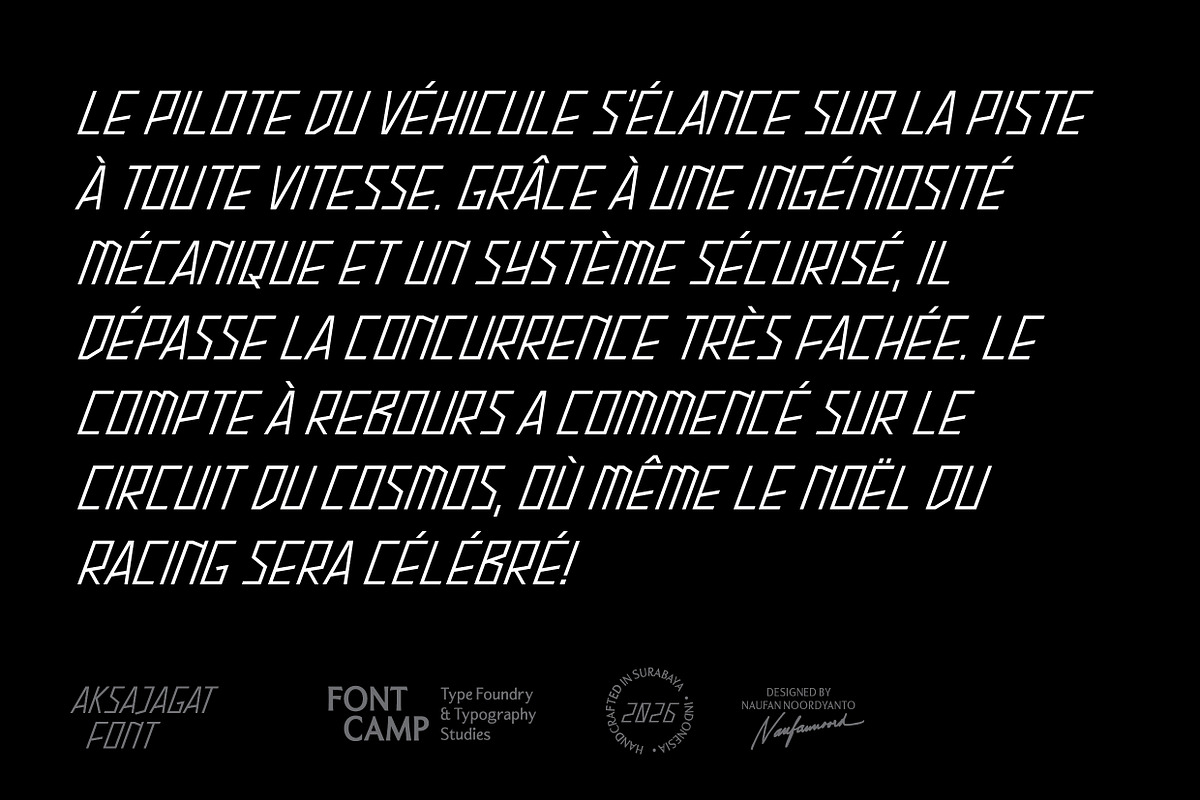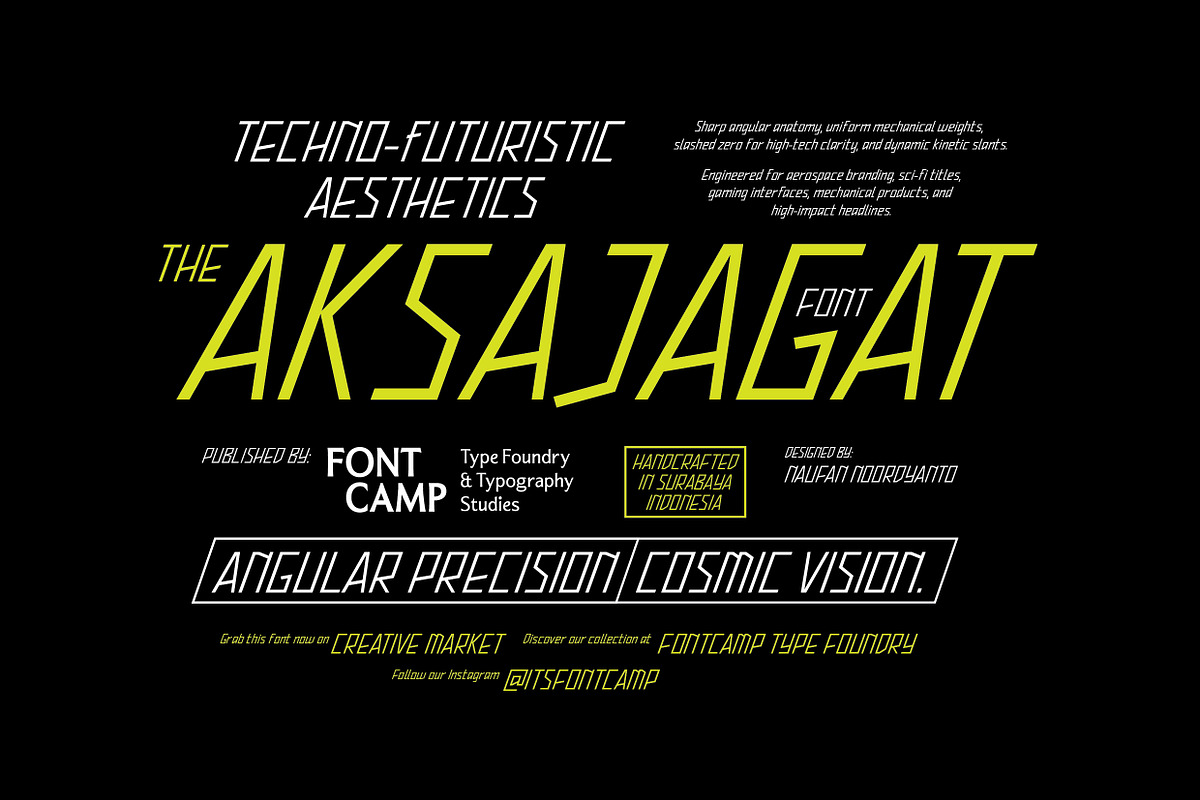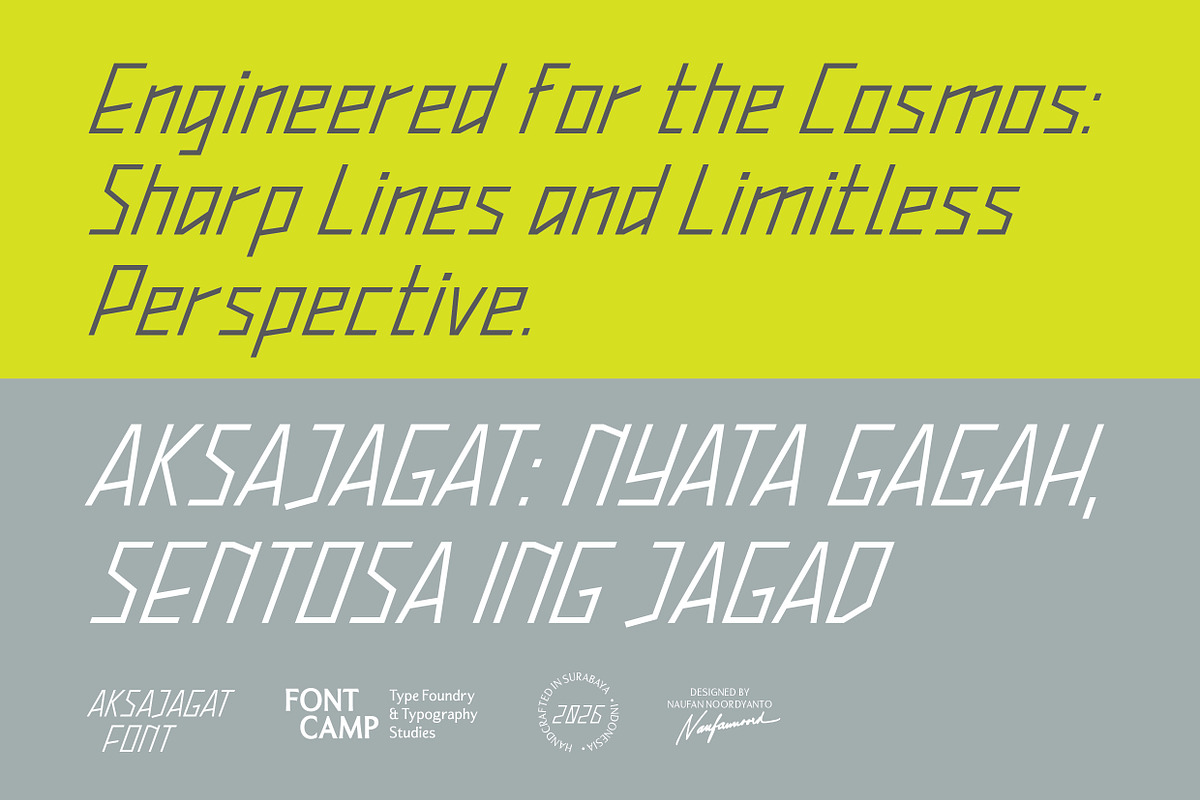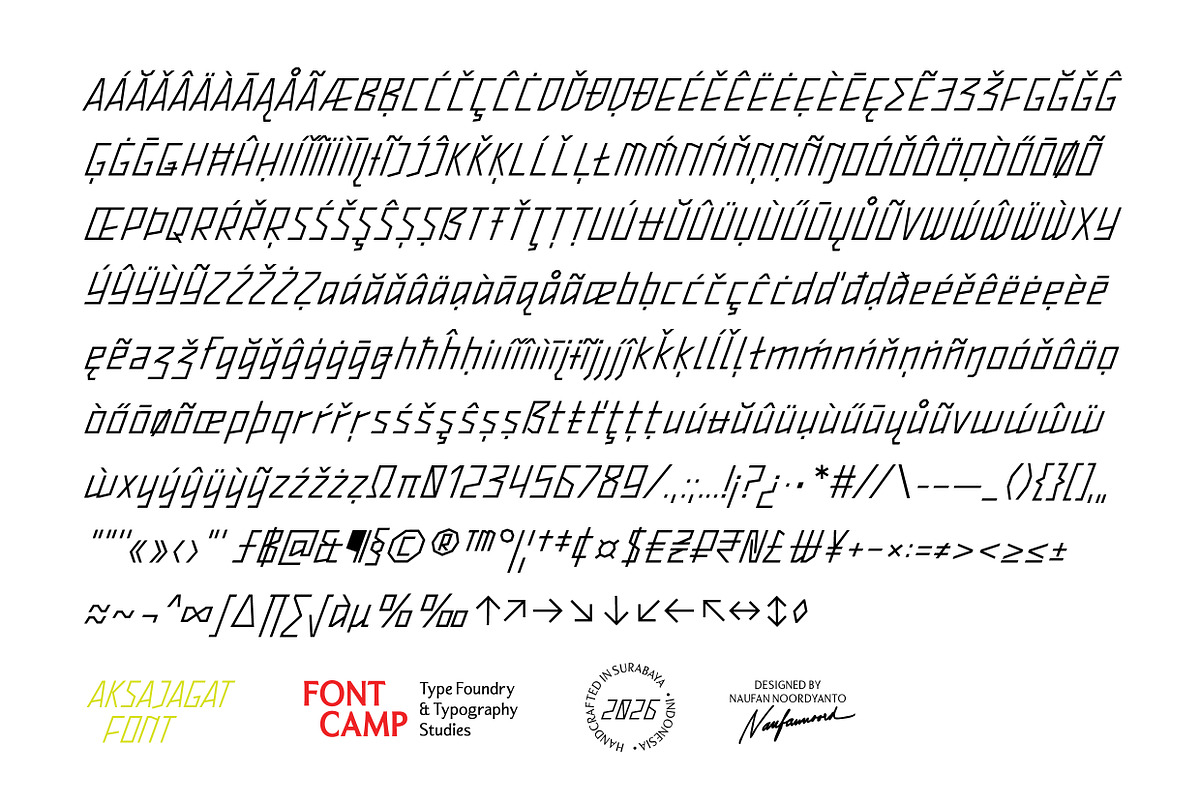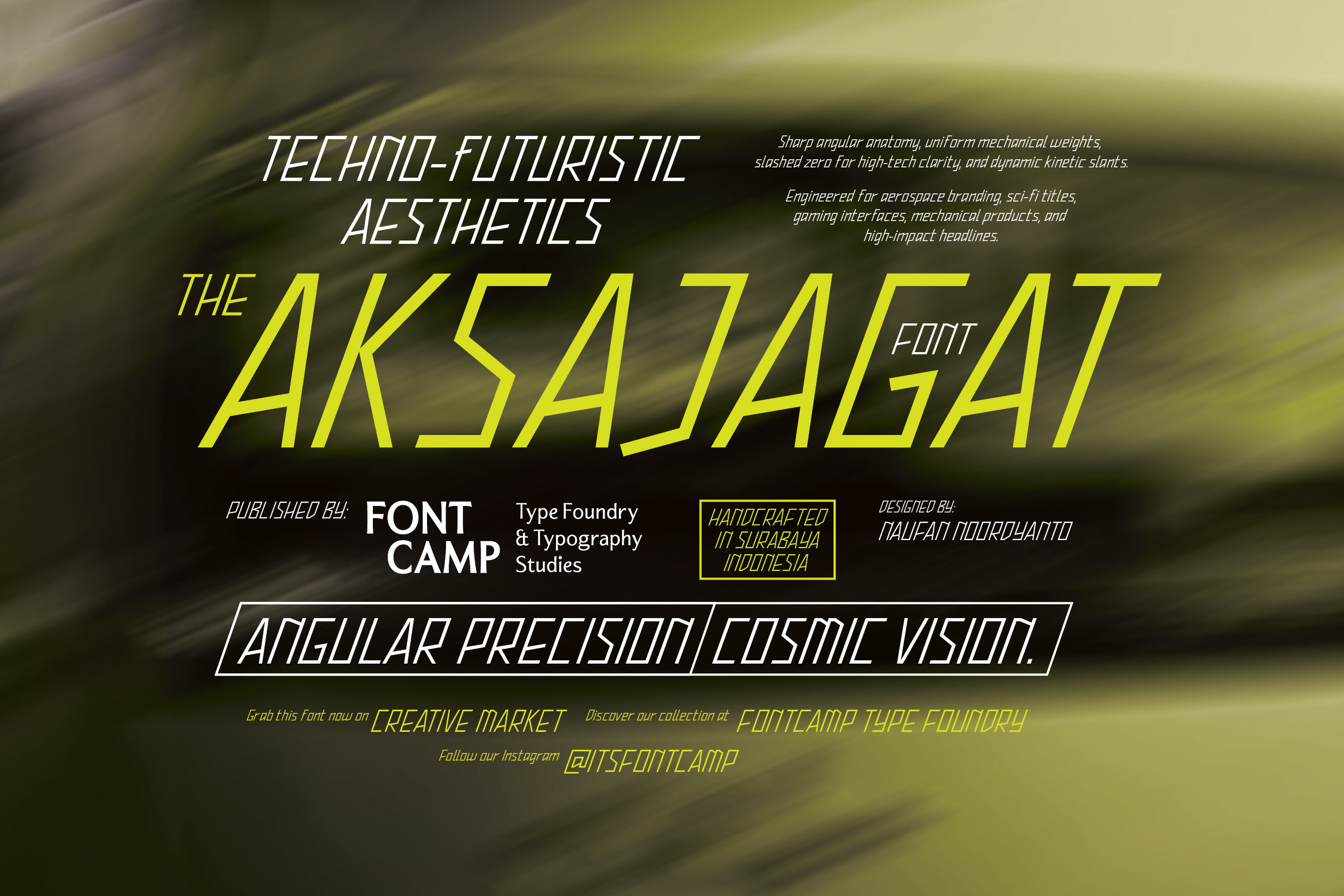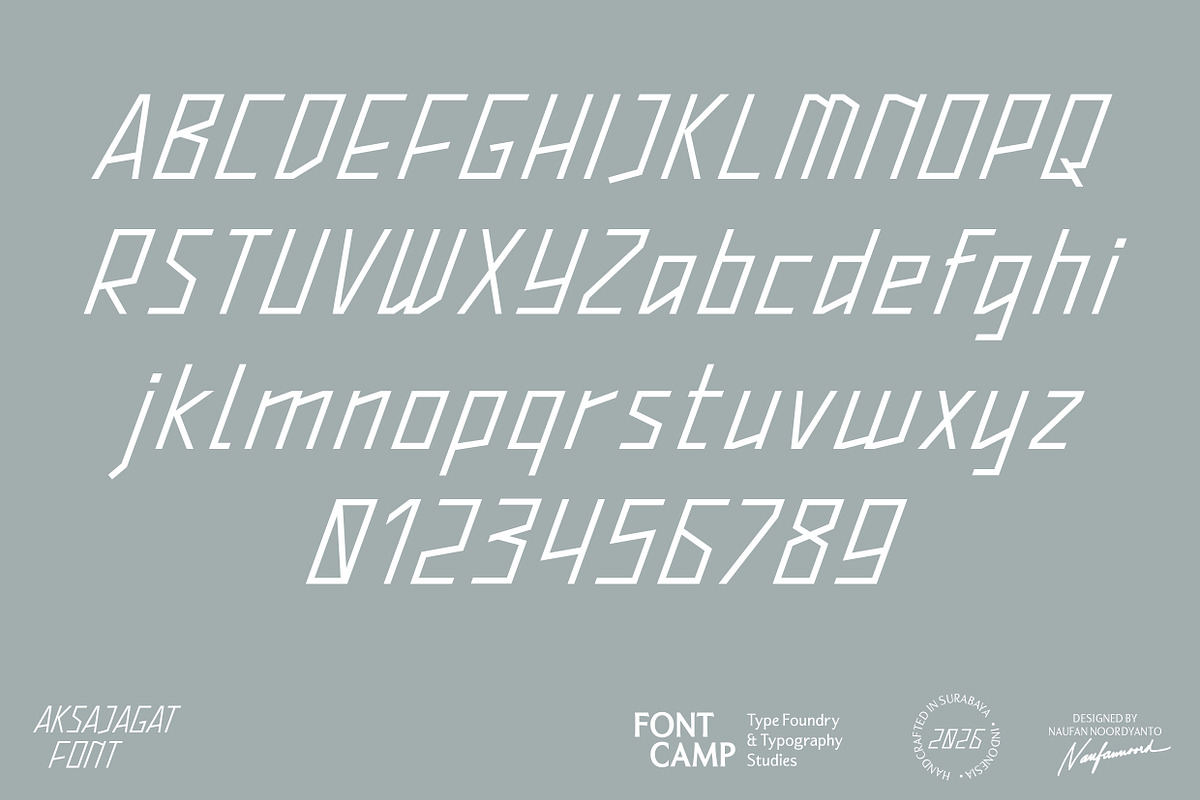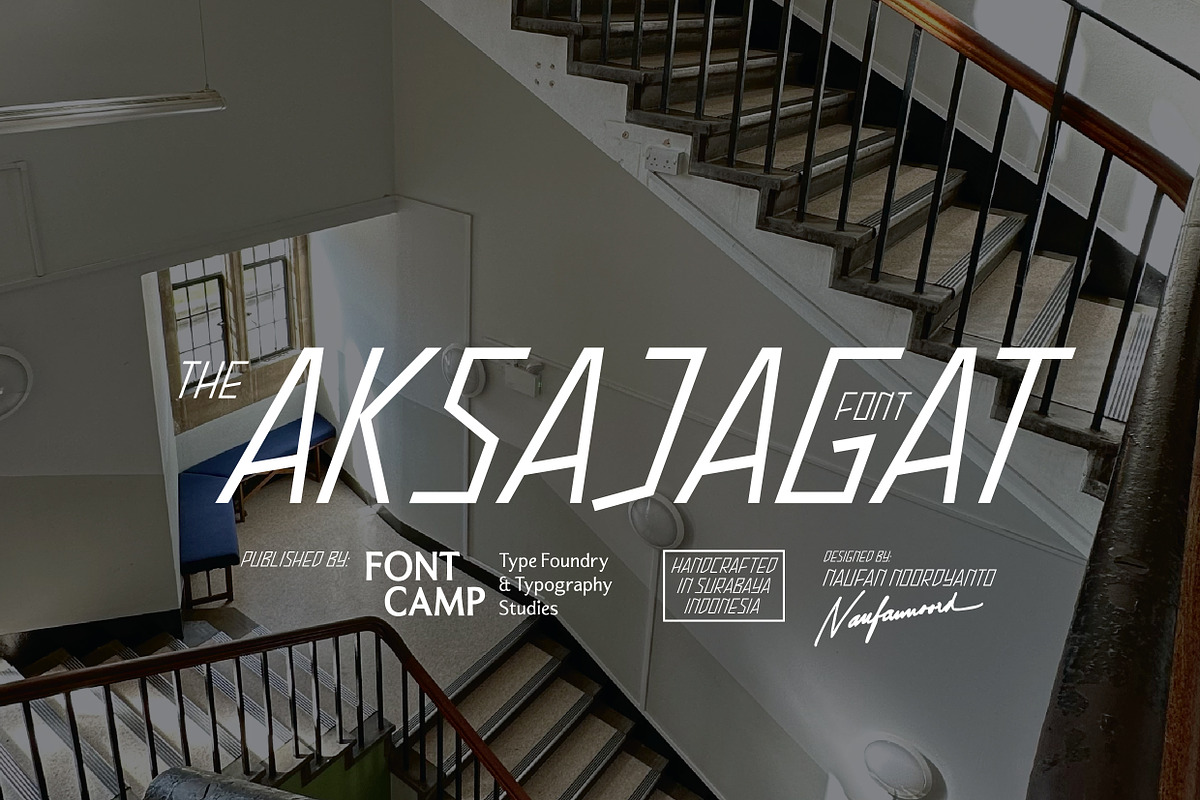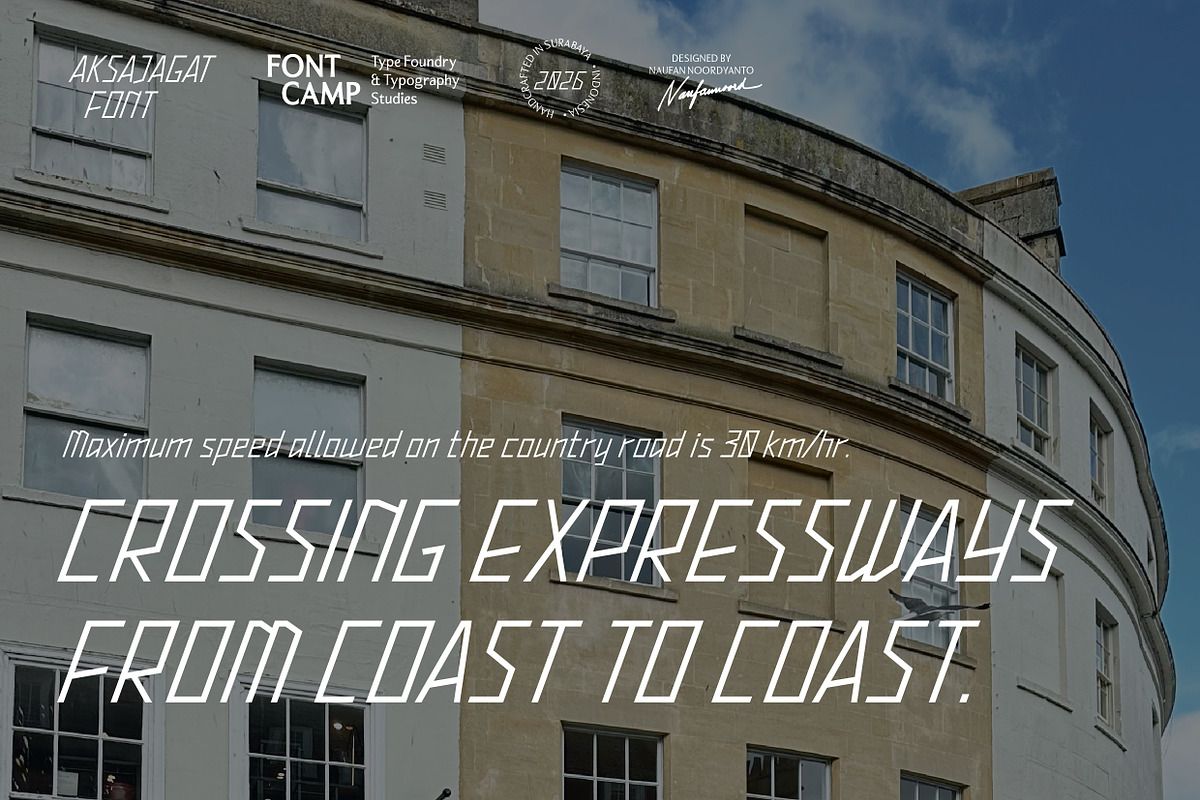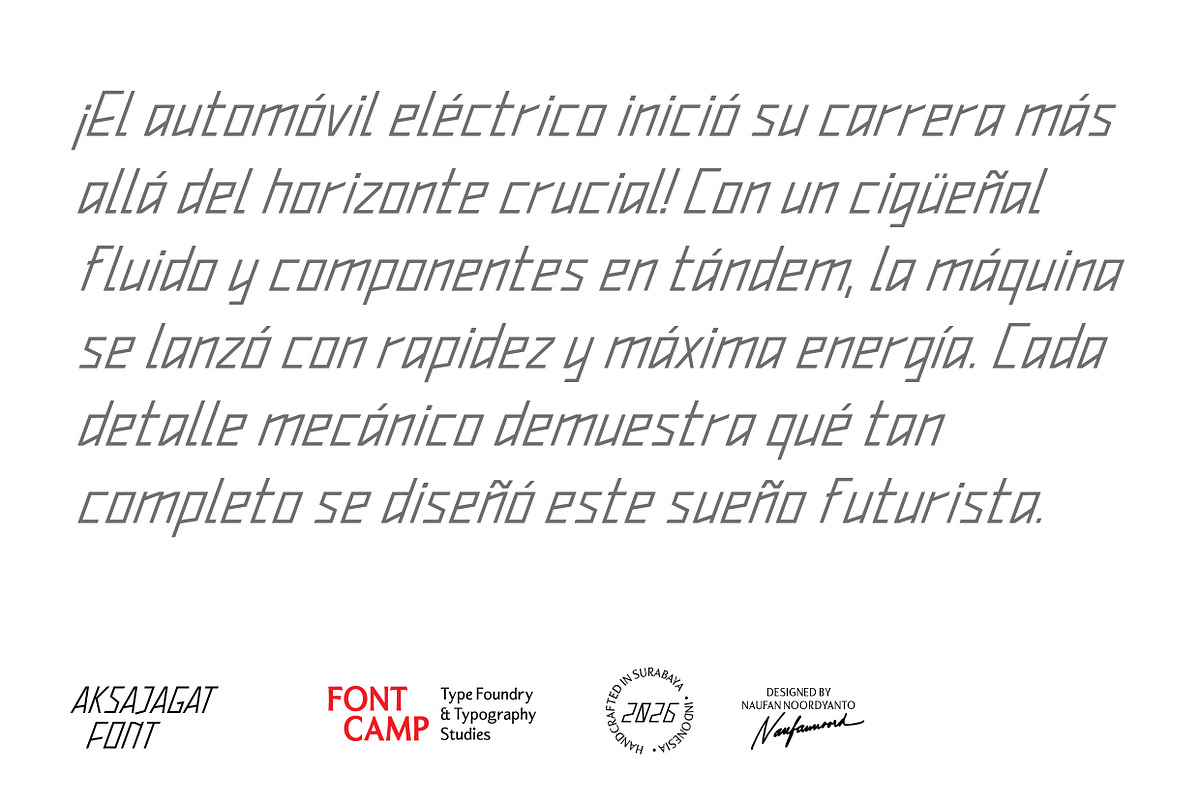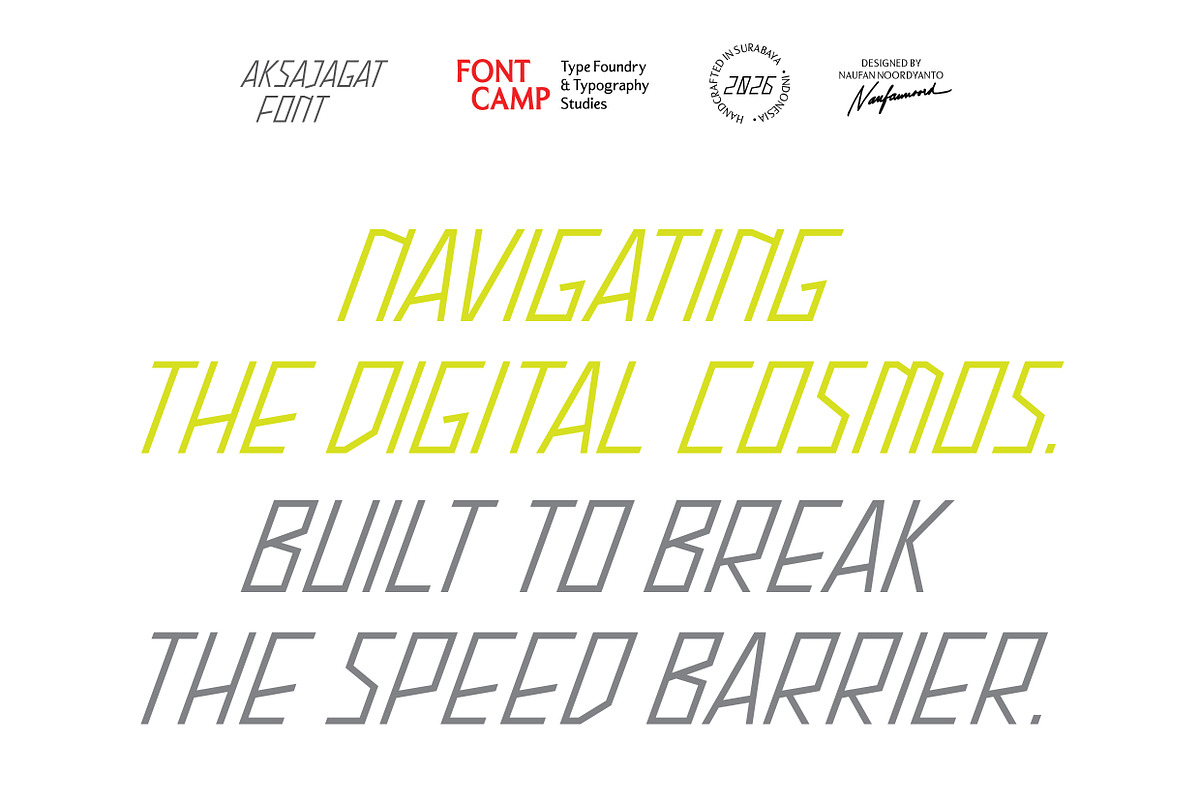
Aksajagat Font
Introducing an "AKSAJAGAT FONT".
DESCRIPTION:
Aksajagat is a modern, geometric sans-serif typeface characterized by its strong italic slant, sharp angles, and futuristic aesthetic. True to its name—evoking a universal perspective and cosmic knowledge—the font projects a sense of forward momentum, speed, and technological sophistication.